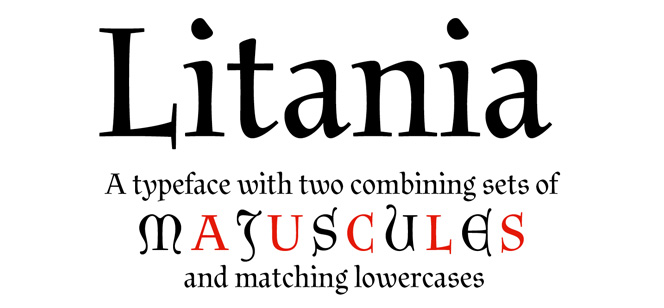
Litania font
Litania font is a modern serif typeface that will immediately get you back in time. It is based on the work of the medieval monks and the written heritage of their monasteries. It is the beauty and the calligraphic perfection of their manuscripts that served as inspiration of Litania font and especially one specific method they employed. In fact they used to write out the majuscules in different manner even in a same word thus creating unique masterpieces. The concept of variation lies in the foundations of the typographic experiment that is Litania font. It provides two sets of uppercase letters – Roman and the very interesting Lombardic capitals with the idea of combining them in four different stylistic sets. Lowercase letters bare resemblance to Carolingian minuscules and match the uppercase sets perfectly. Also extras are added like pointing hands, arrows and triangles.
There is one thing that we cannot but point out too – the very appropriate name that was chosen for this project. Litania (litany) is a short prayer that is to be repeated numerous times a day. When looking at this font we cannot help but remember what was said centuries ago about the probably most famous litany – ‘Kyrie Eleison’ (God, have mercy) as it evokes the same feelings in us – “so sweet and pleasing… even though continued day and night without interruption, could never produce disgust or weariness”.
Litania font is designed by a designer we know very well and appreciate very highly – the Portuguese Rui Abreu and is released by his own type foundry. Rui never stops amazing us with the large stylistic variety of his typefaces. Here are some examples: Foral Pro, Orbe Pro, Signo, Grafolita Script.